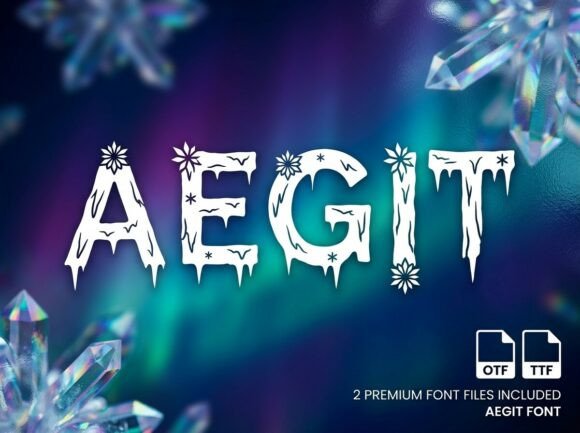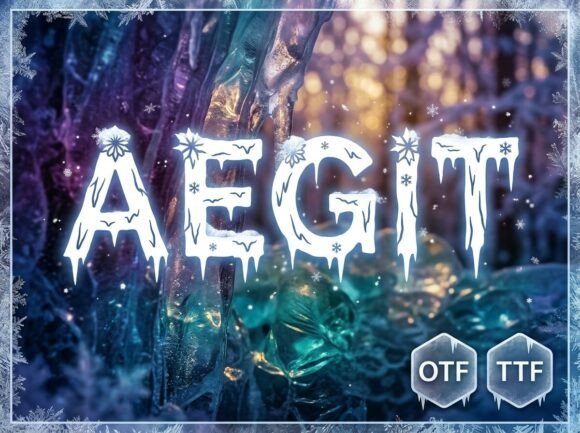
Aegit Font: A Stunning Decorative Display Font for Creative Minds
In the world of typography, fonts play a crucial role in conveying messages, expressing emotions, and creating visual identities. For designers, crafters, and creators, finding the perfect font can be a daunting task. However, if you’re looking for a font that can add a touch of elegance, sophistication, and creativity to your projects, look no further than the Aegit Font.
What is Aegit Font?
Aegit Font is a stunning decorative display font designed to be the center of attention. With its unique artistic elements and strong visual personality, this font is perfect for creators who want to break away from the ordinary. Whether you’re working on bold headlines, artistic logos, or creative packaging, Aegit Font is versatile enough to deliver a professional and polished finish.
Key Features of Aegit Font
So, what makes Aegit Font so special? Here are some of its key features:
- Unique Artistic Elements: Aegit Font boasts unique artistic elements that set it apart from other fonts. Its creative and decorative style is perfect for adding a touch of elegance and sophistication to your projects.
- Strong Visual Personality: This font has a strong visual personality that can add a touch of drama and creativity to your designs. Whether you’re working on a logo, headline, or packaging, Aegit Font is sure to make a statement.
- Versatility: Aegit Font is versatile enough to be used for a variety of design projects, including bold headlines, artistic logos, and creative packaging.
- Professional and Polished Finish: Despite its creative and decorative style, Aegit Font maintains a professional and polished finish, making it perfect for designers and crafters who want to deliver high-quality work.
Before you purchase Aegit Font, it’s essential to note that this font is an ALL-CAPS (Uppercase Only) display typeface. This means that it does not include lowercase letters. Aegit Font is specifically designed for high-impact headlines, logos, and decorative initials where every letter is a work of art.
Who is Aegit Font for?
Aegit Font is perfect for:
- Designers: Whether you’re a graphic designer, typographer, or UI/UX designer, Aegit Font can add a touch of creativity and elegance to your designs.
- Crafters: If you’re a crafter who loves to create handmade cards, gift tags, or other paper crafts, Aegit Font can help you add a professional and polished touch to your work.
- Marketing and Advertising Professionals: Aegit Font is perfect for marketing and advertising professionals who want to create bold and eye-catching headlines, logos, and packaging.
Tips for Using Aegit Font
Here are some tips for using Aegit Font:
- Use it for Headlines and Titles: Aegit Font is perfect for headlines, titles, and other display text. Use it to add a touch of drama and creativity to your designs.
- Experiment with Colors and Textures: Aegit Font looks great in a variety of colors and textures. Experiment with different colors and textures to add depth and interest to your designs.
- Pair it with Other Fonts: Aegit Font can be paired with other fonts to create a unique and visually appealing design. Try pairing it with a sans-serif font for a bold and modern look.
In conclusion, Aegit Font is a stunning decorative display font that can add a touch of elegance, sophistication, and creativity to your designs. With its unique artistic elements, strong visual personality, and versatility, this font is perfect for designers, crafters, and creators who want to break away from the ordinary. Whether you’re working on bold headlines, artistic logos, or creative packaging, Aegit Font is sure to deliver a professional and polished finish.